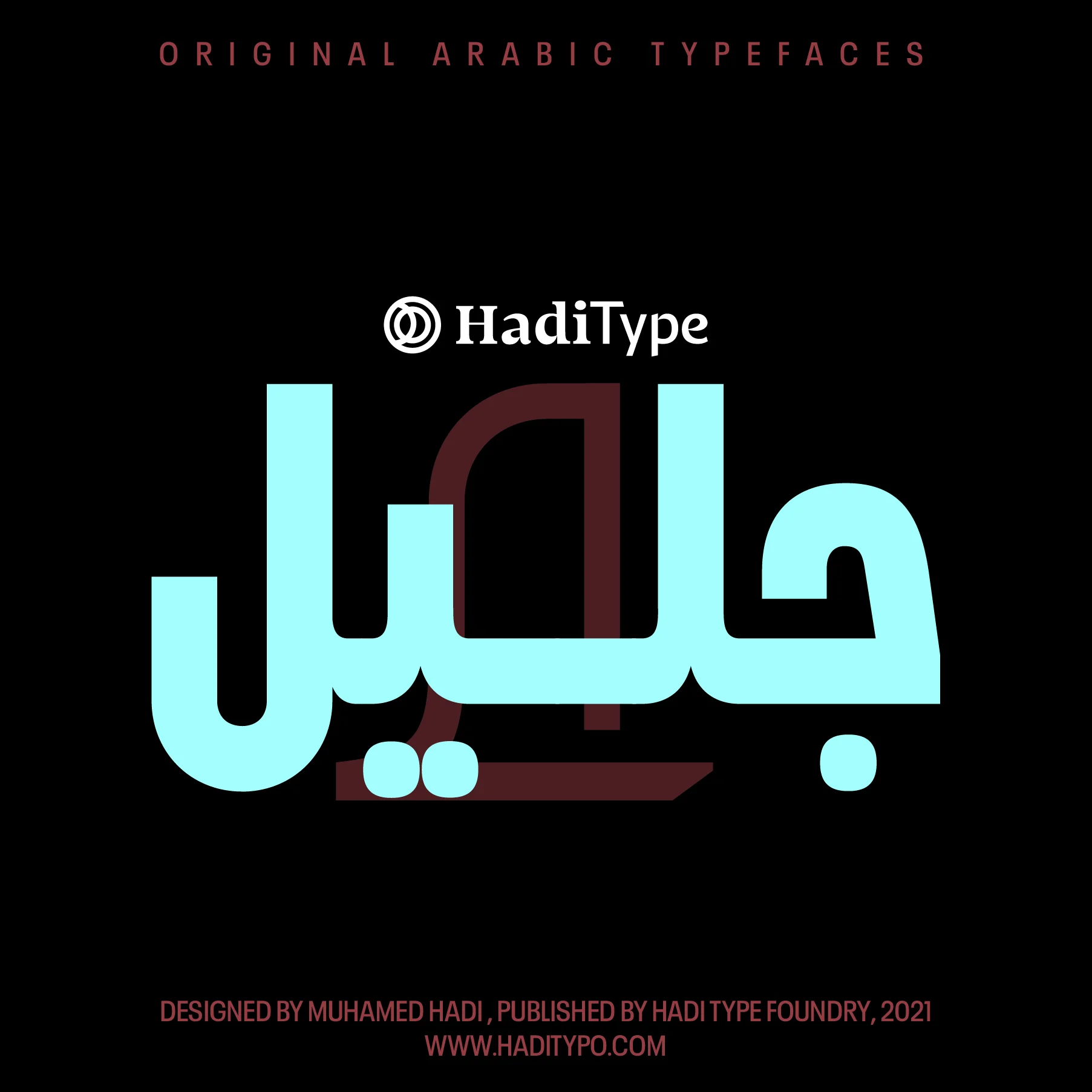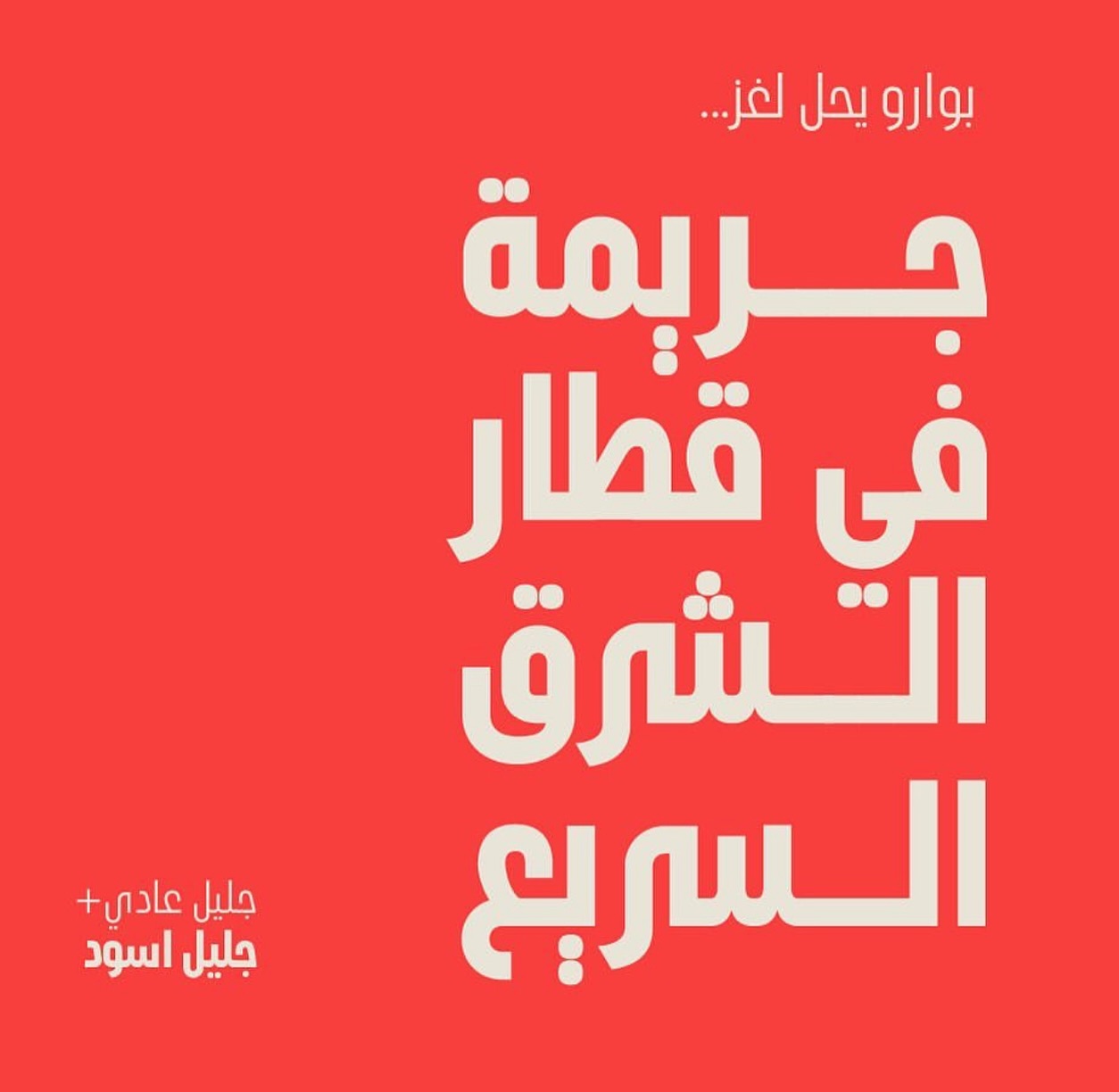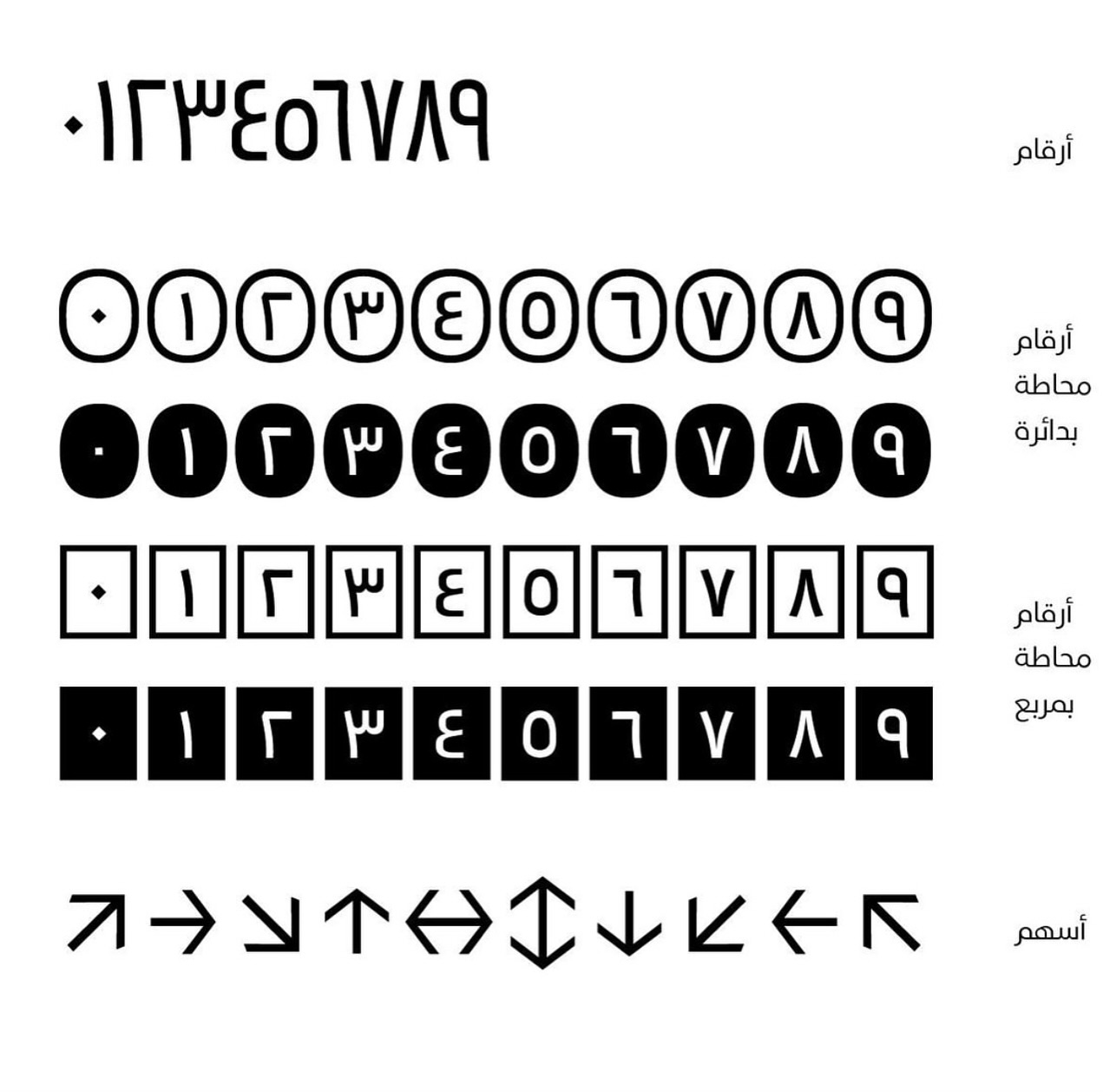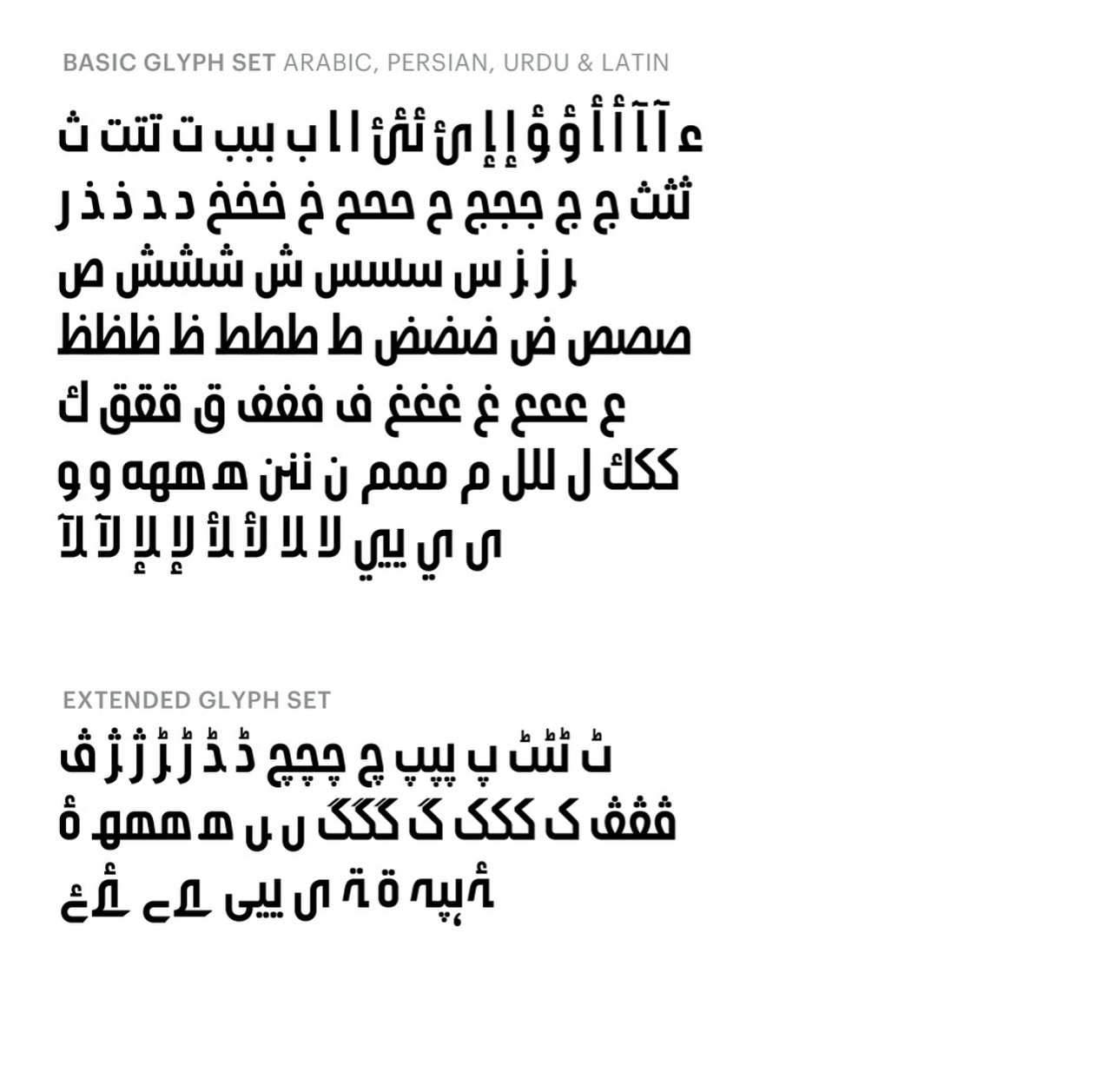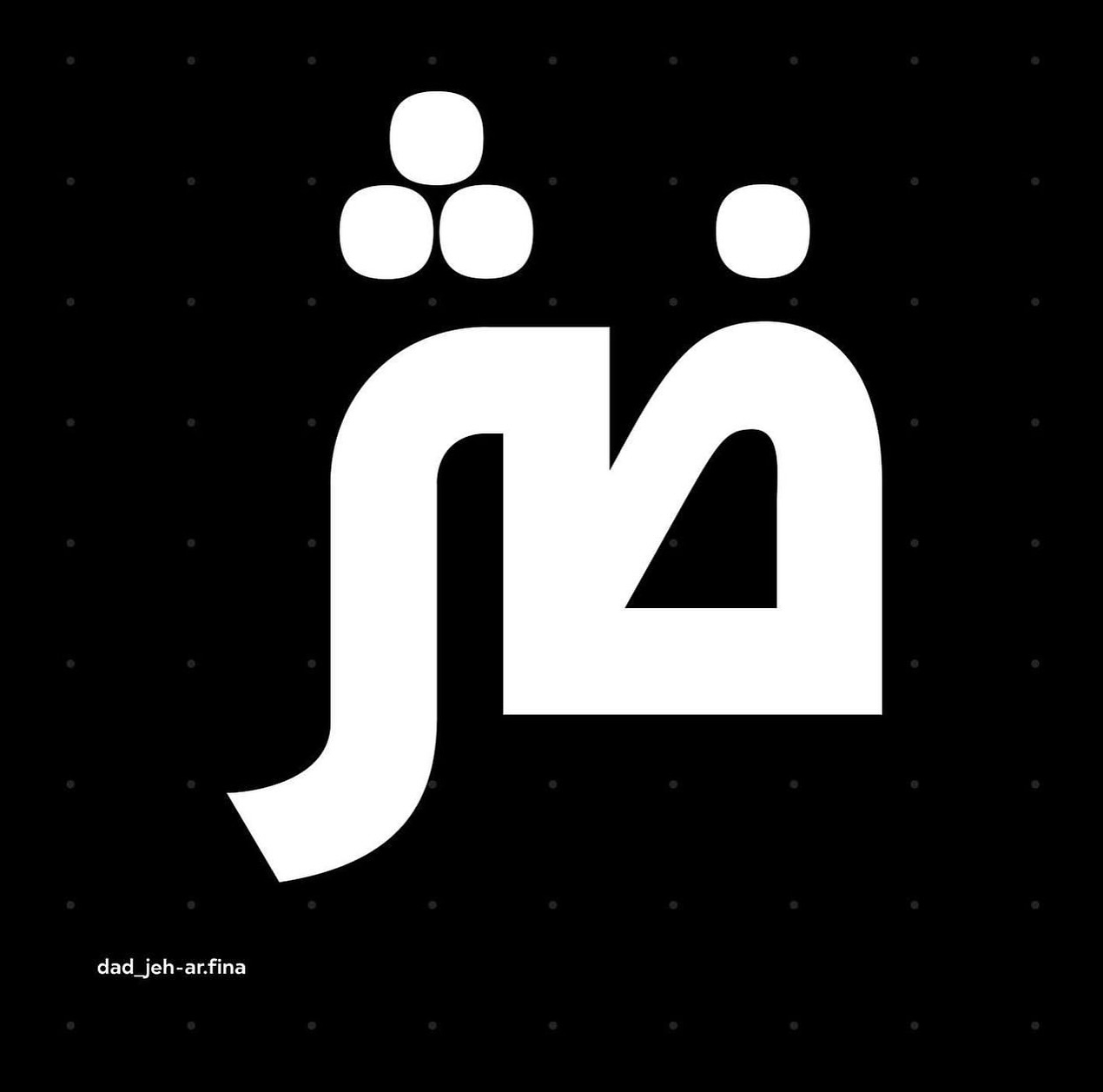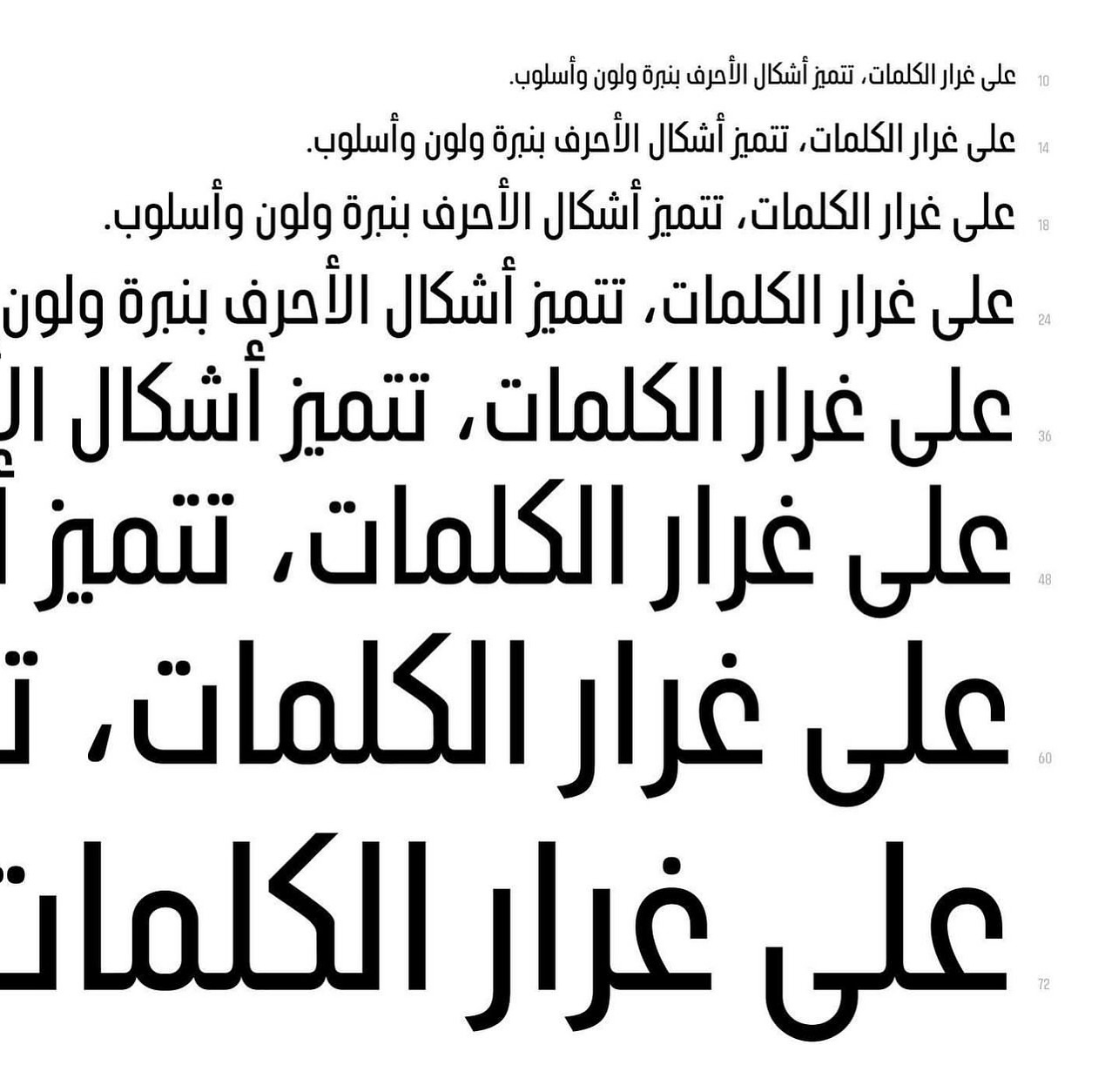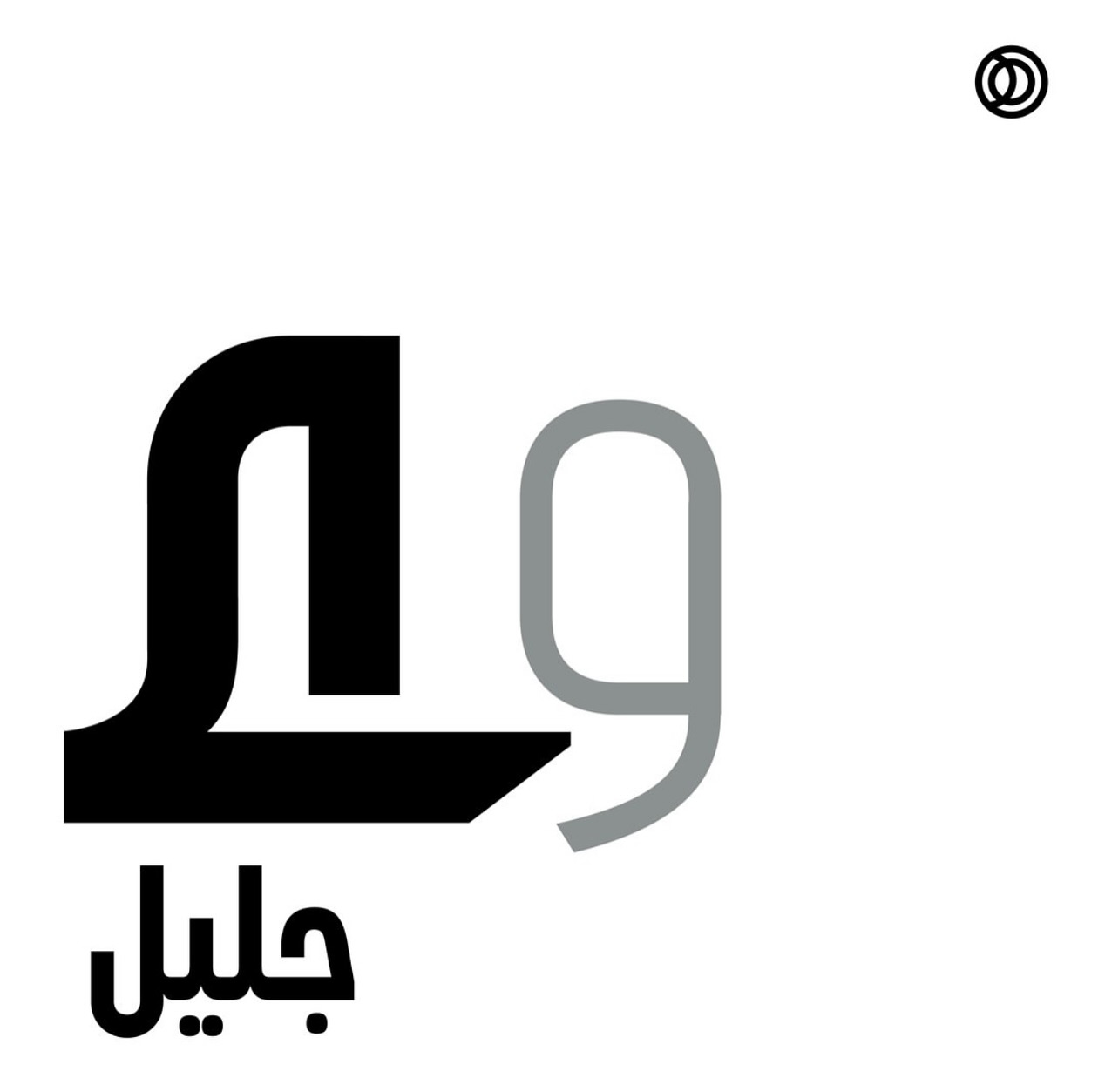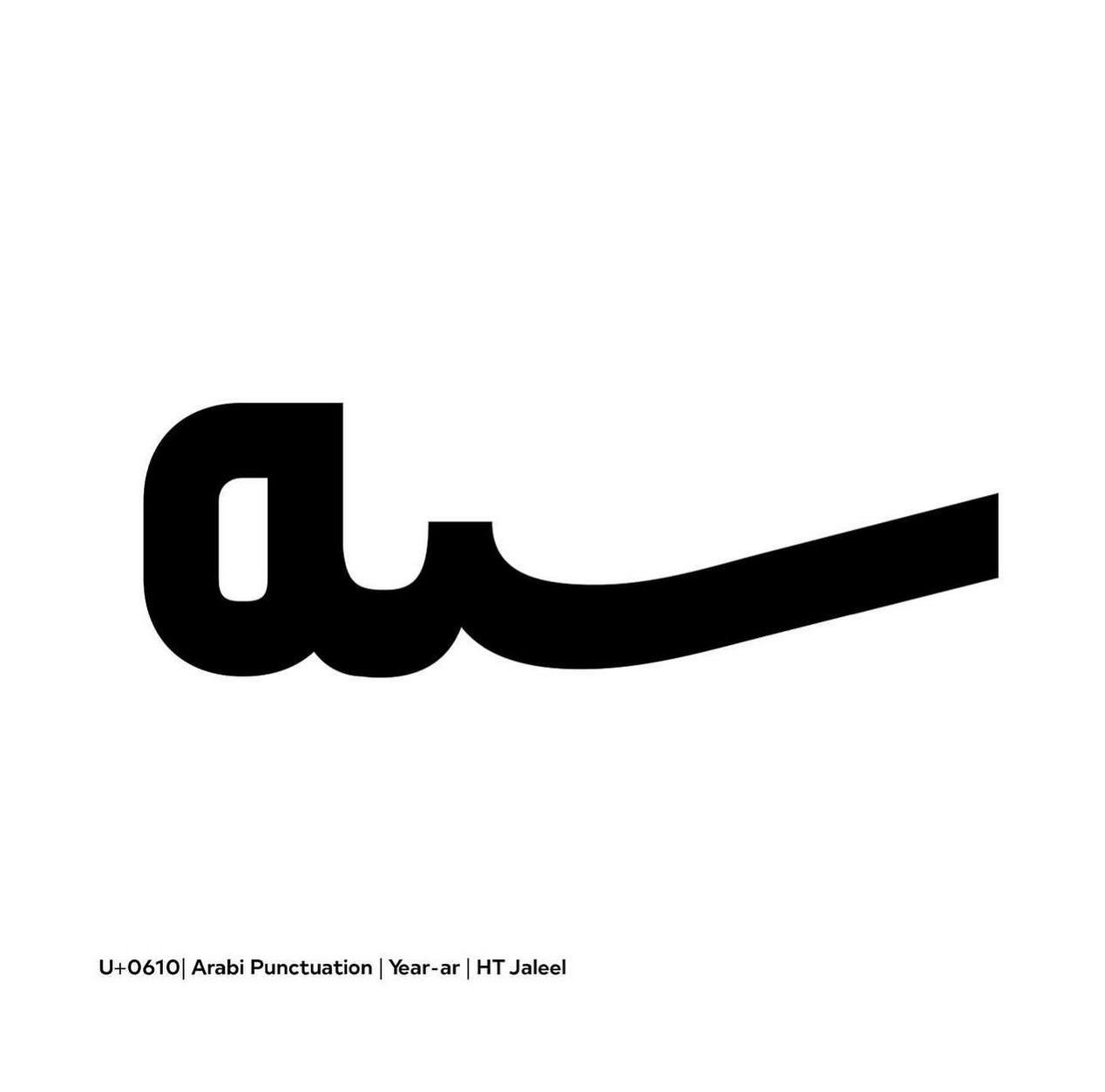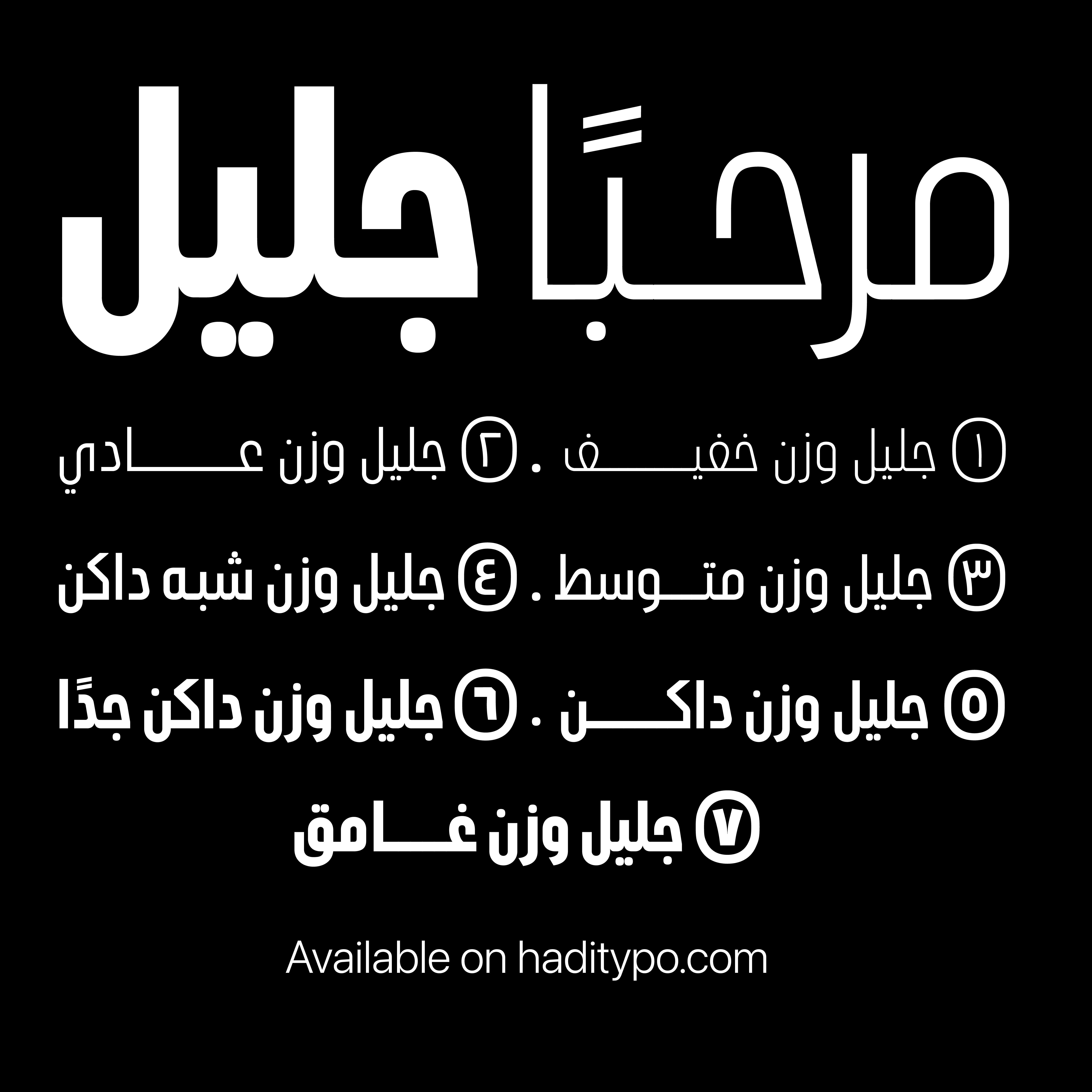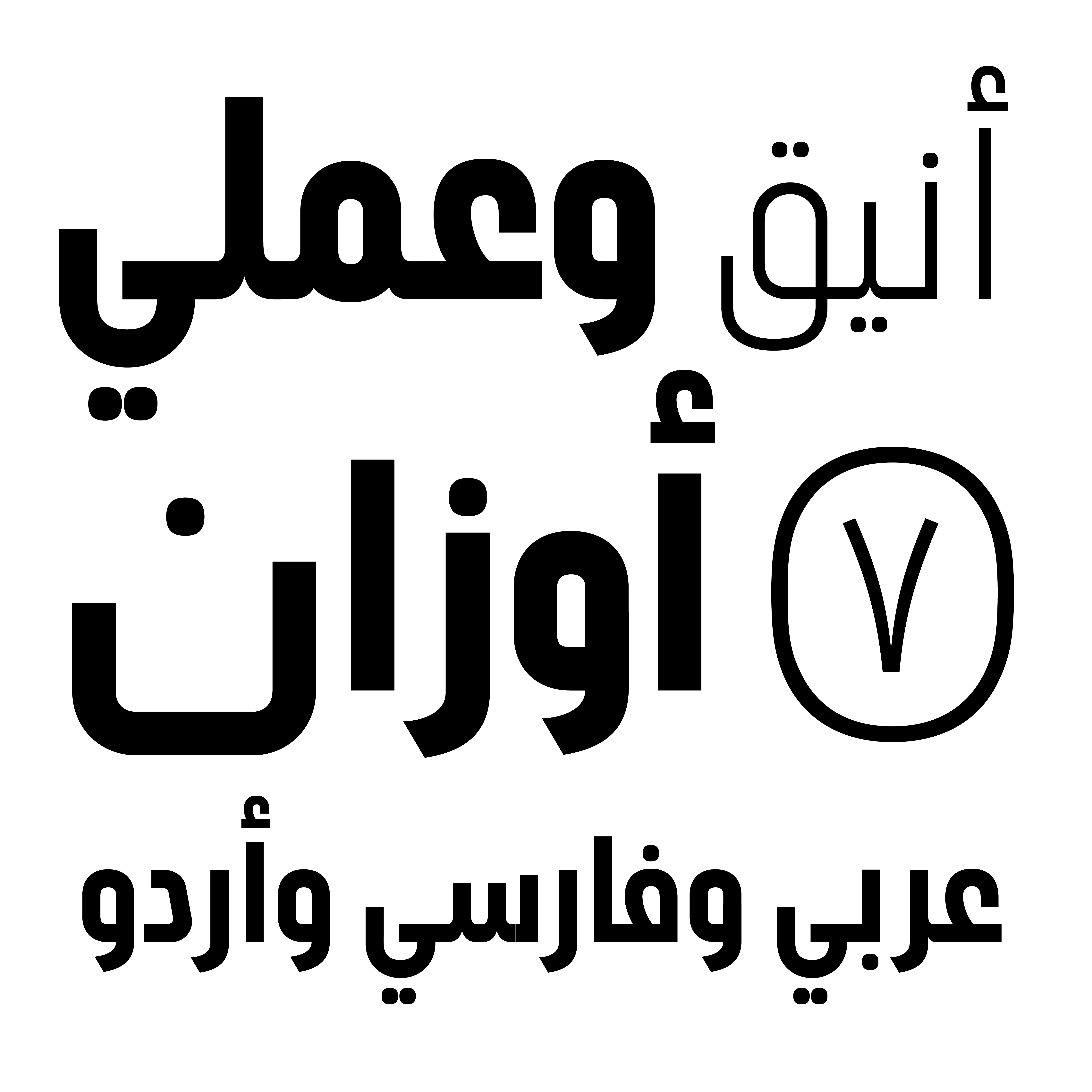
HT Jaleel
HT Jaleel is a contemporary Arabic type family with a compact geometric structure, designed to deliver strong visual presence within limited spaces—without sacrificing clarity or rhythm.
The typeface is built on simplified rounded forms and straightened verticals, resulting in a highly cohesive and modern appearance. This geometric refinement gives the text a streamlined, confident look, combining visual stability with expressive strength.
The family includes 7 carefully balanced weights, ranging from Light to Black, offering broad flexibility for visual systems—from bold headlines and branding to digital interfaces and editorial layouts.
HT Jaleel has been meticulously engineered to fully support Arabic connections and ligatures, ensuring smooth text flow, balanced proportions, and consistent readability across sizes.
Ideal for:
Brand identities, headlines, editorial design, digital interfaces, and contemporary visual systems.
Supported languages:
Arabic, Farsi, Urdu.